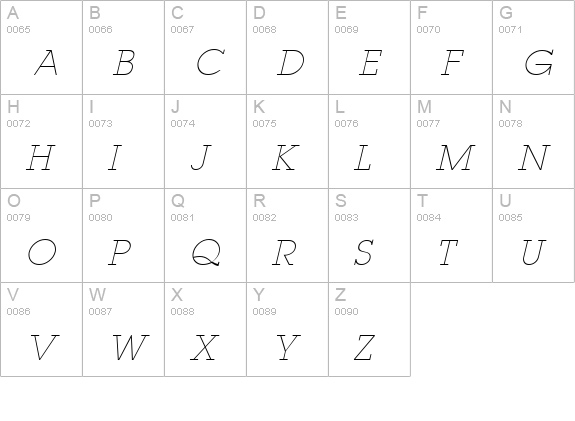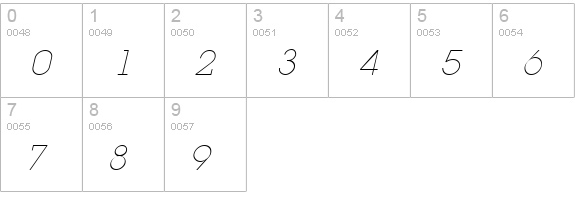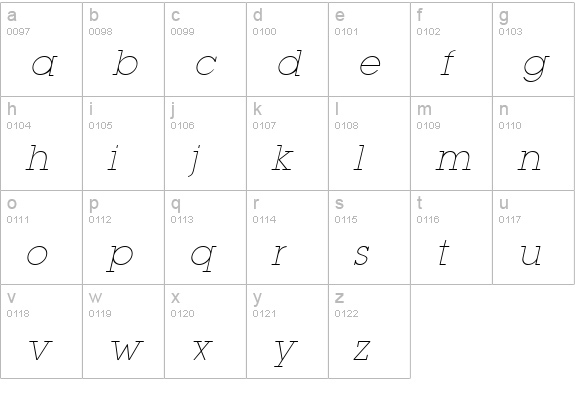
Lapland Light Italic is a refined, elegant, italic variant in the Lapland typeface family \xE2\x80\x94 well suited to elegant body text, refined sub-headings, and luxury branding.
Lapland Light Italic font is a stunningly elegant and delicate typeface that exudes sophistication and grace. With its graceful curves and gentle slant, this font adds a touch of elegance to any design project. This font is perfect for creating eye-catching titles, headings, and body text that demand attention. Its slender and stylish letterforms are meticulously crafted to create a harmonious and balanced look, making it ideal for both print and digital media. Lapland Light Italic font offers a unique blend of modernity and classic charm, making it suitable for a wide range of design applications. Whether you are designing a wedding invitation, a fashion magazine, or a sophisticated branding project, this font will effortlessly elevate your design to new heights. The best part? Lapland Light Italic font is available for free! You can easily download this font from FontsMarket.com, a reputable source for high-quality fonts. By offering this font for free, the creators have made it accessible to designers and creatives of all backgrounds, ensuring that everyone can enjoy its beauty and versatility. So why wait? Unlock your creativity and add a touch of elegance to your designs with Lapland Light Italic font. Download it now for free at FontsMarket.com and let your imagination soar.